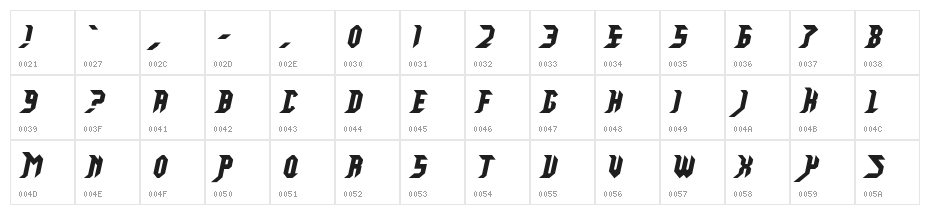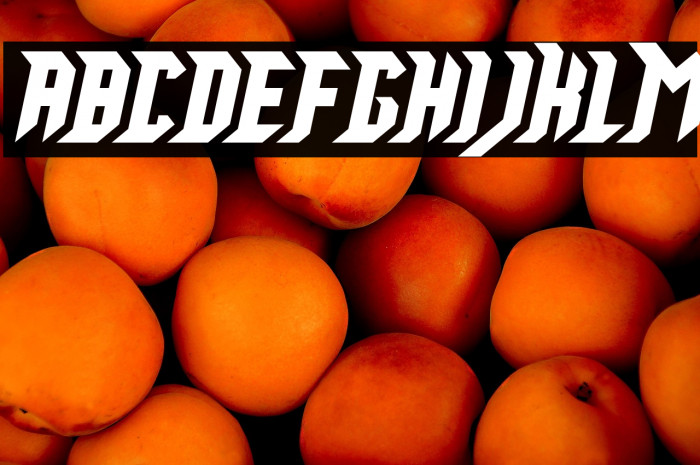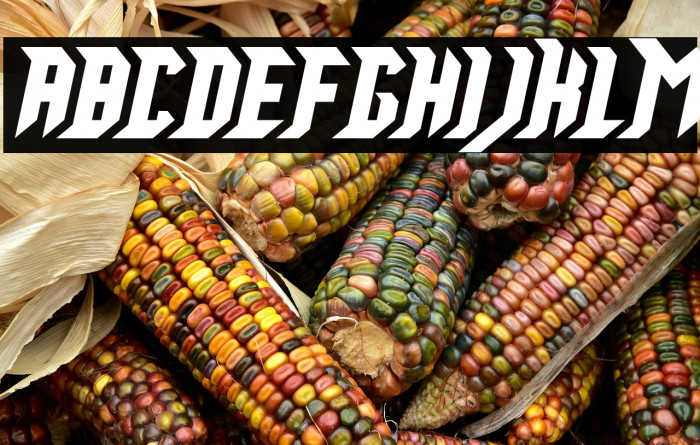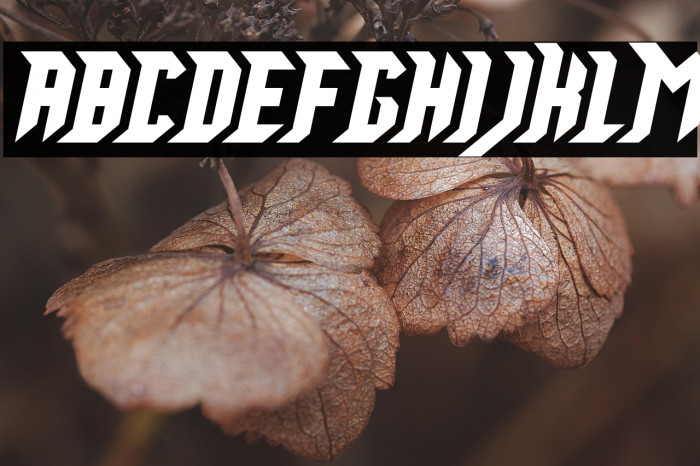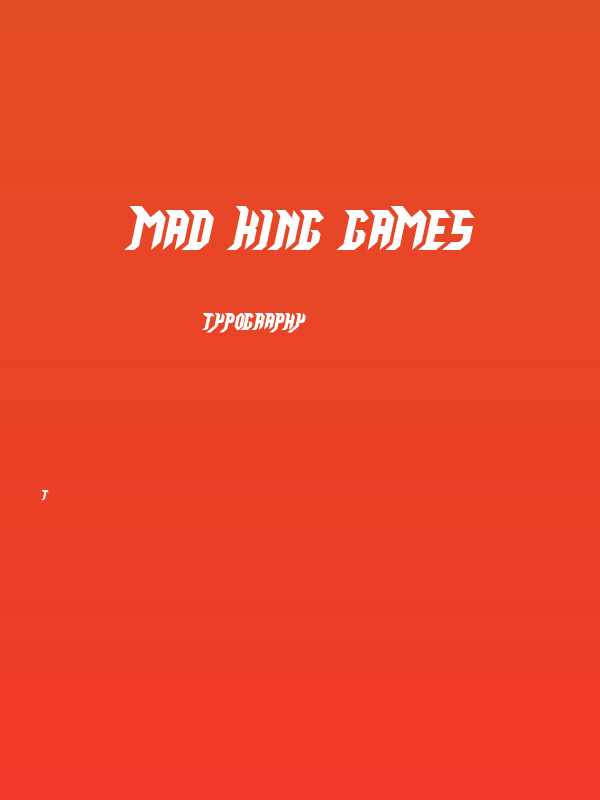
Mad King Games Font
Mad King Games Description
This font features a bold, angular design with sharp edges and a dynamic, forward-leaning stance. The characters are heavily stylized, giving them a futuristic and aggressive appearance. The uppercase and lowercase letters maintain a consistent geometric form, while the numbers and special characters follow the same angular theme. The overall aesthetic is reminiscent of a modern, edgy typeface suitable for impactful visual statements.
| Use Case | Logos, Headlines |
| Proposed Projects | Ideal for video game titles, sports team logos, or any project requiring a strong, dynamic visual impact. |